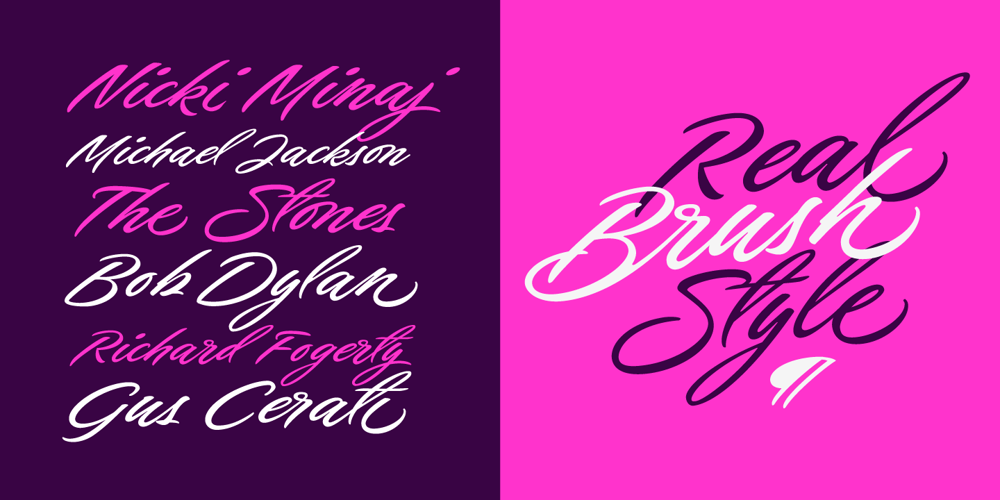
Live
Live font
Live Font Family was designed by Maximiliano R. Sproviero and published by Sproviero Type. Live contains 3 styles and family package options. After Bird Script’s ballet, Sproviero comes with these fast strokes, resulting in a font full of life and a youthful spirit. The aim of Live was again to see how far calligraphy & lettering could dive into the world of type-design. The font is perfect for logos, posters, magazines, perfumes and all pieces of design related to music, and the feminine world. You can also have a lot of fun with Live More, which contains a set of pre-designed catch words and lovely ornaments.